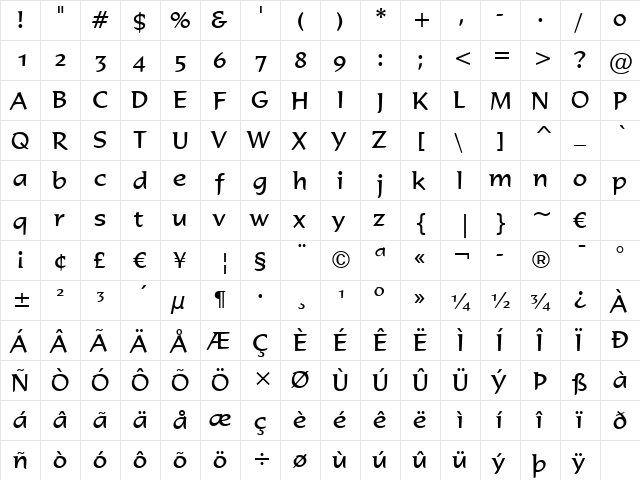
Formal436 BT Regular
Design Context for Formal436 BT Typeface
Formal436 BT takes a measured approach to typography — its balanced proportions and neutral character make it a reliable workhorse for both digital and print work.